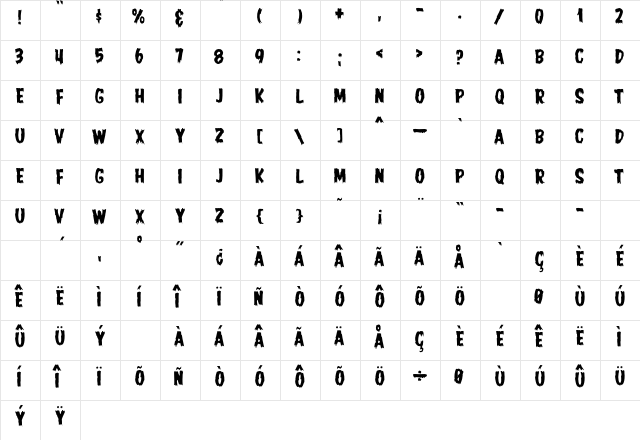
JMHHORROR HORROR
| Designer | jorge Mor |
Design Context for JMHHORROR Typeface
JMHHORROR carries an unsettling edge — its distorted letterforms are built to unsettle, perfectly suited to horror, Halloween, and dark creative work.
Perfect for anything that needs to unsettle — game titles, horror branding, and macabre invitations.
Font Pairing: Pair with a clean neutral sans-serif for body copy to let JMHHORROR's character lead without overwhelming the composition.
Pro Tip: Use JMHHORROR at larger display sizes for maximum impact. Consider generous tracking to let the disturbing character of each letterform breathe.